20+ Script Font Styles for Tattoos That Look Bold and Expressive
Designers, tattoo artists, enthusiasts, and clients alike all know one thing: the right lettering can turn a simple tattoo into a lifelong statement. Choosing the perfect script font style for tattoos isn’t always easy, especially when personality and readability matter. Let’s explore some inspiring options together.
Key Takeaways:
- A tattoo font style can define the personality and emotional tone.
- Clear stroke structure helps tattoo lettering remain readable and beautiful over time.
- Unique script font styles for tattoos help create more personal and memorable body art.
- Different script styles can express bold, romantic, minimalist, or expressive character.
Exploring Script Font Styles for Tattoos That Speak With Personality
The right lettering style can transform a tattoo from simple text into a powerful visual identity. In this list, we’ll explore imaginative script font styles for tattoos that showcase elegance, confidence, emotion, and artistic expression.
1. Lazyday
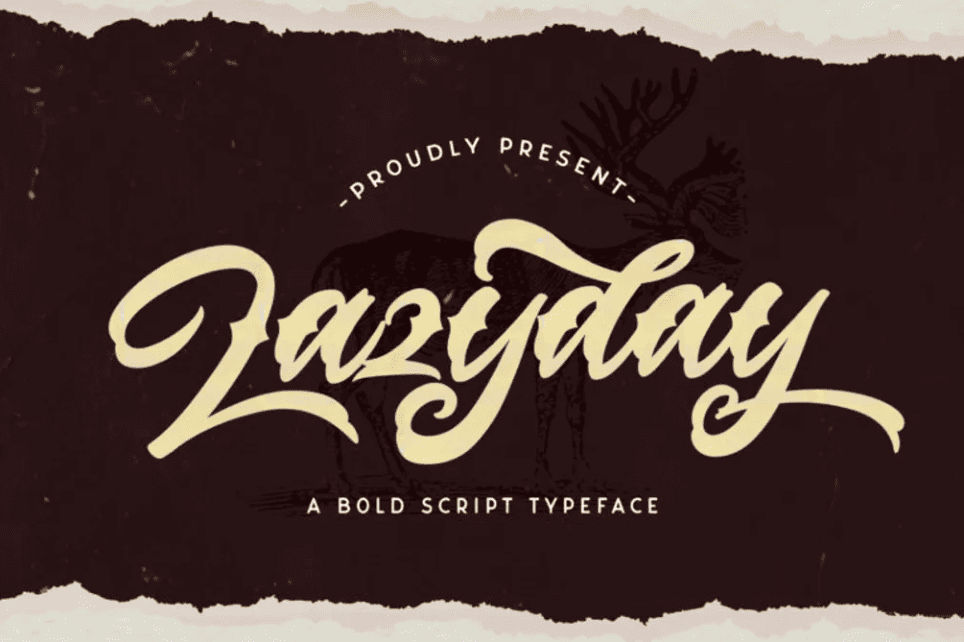
Lazyday carries a romantic confidence, displaying thorny strokes in every letter. This subtle modification on a bold script font adds beauty and intricacies even in a small piece.
2. The Lastring
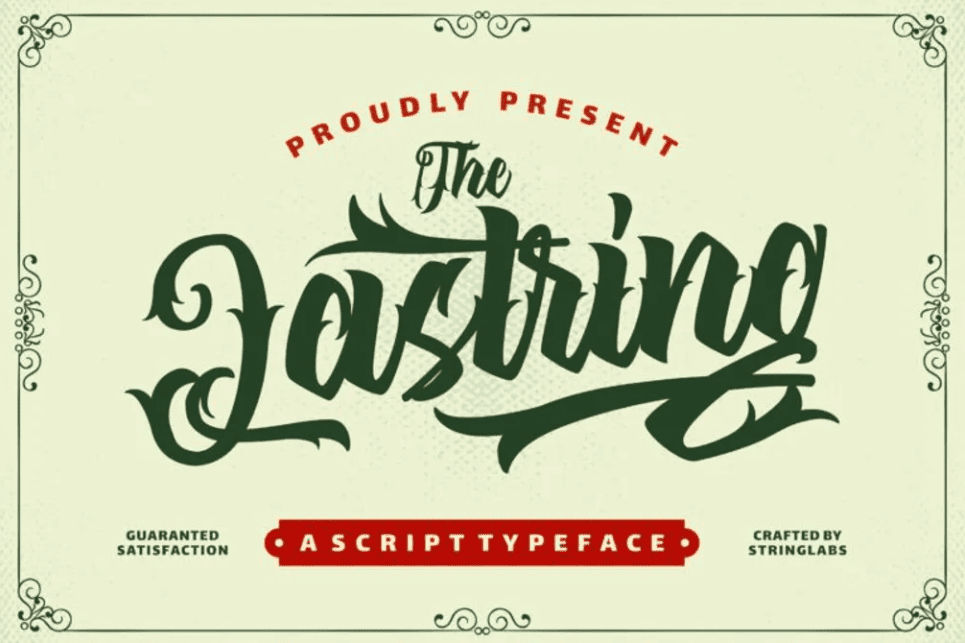
Among our tattoo fonts for men, The Lastring is especially made to express a strong impression. The font combines classy, vintage, and retro visuals with masculine floral accents.
3. Pangestu
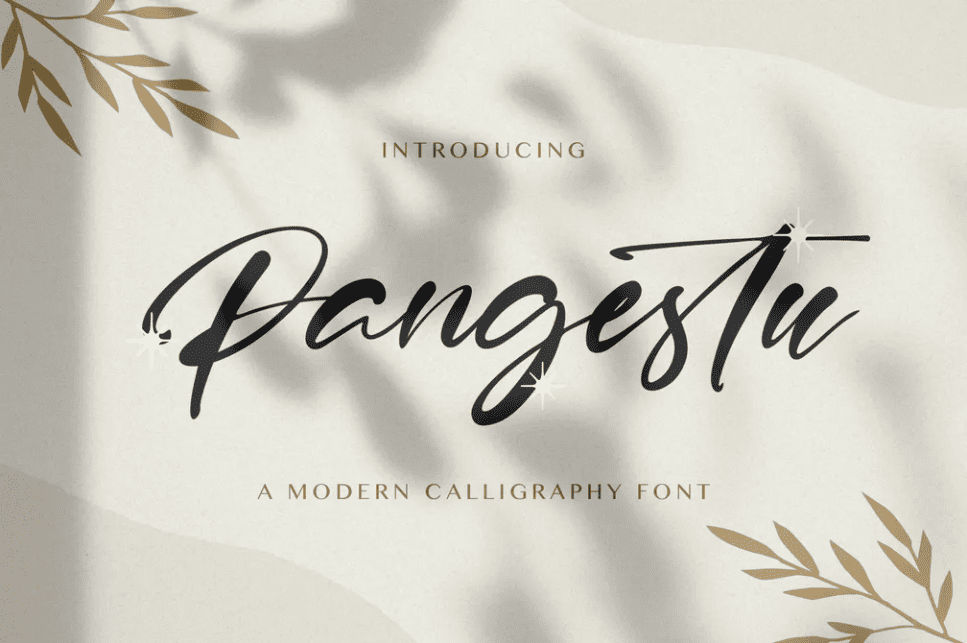
Pangestu displays a dramatic stroke contrast, pairing thick anchors with thin connectors. Its quick strokes and irregular lines create a unique, memorable proportion.
4. Tanya Hati
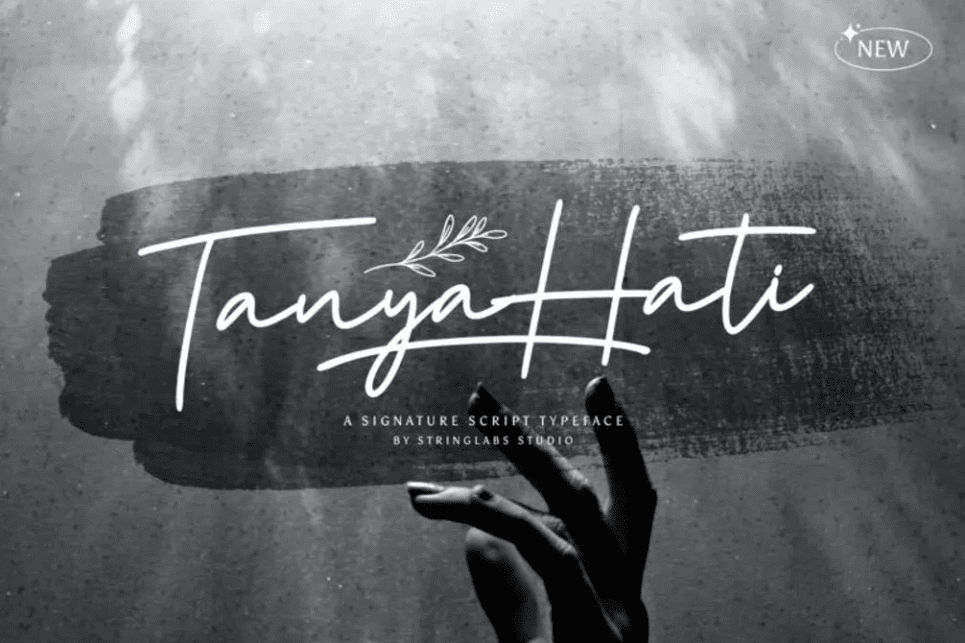
Concludes with gentle loops and understated swashes. Tanya Hati makes a versatile option within script font styles for tattoos, suitable for romantic phrases, memorial names, and poetic lines.
5. I am Cool
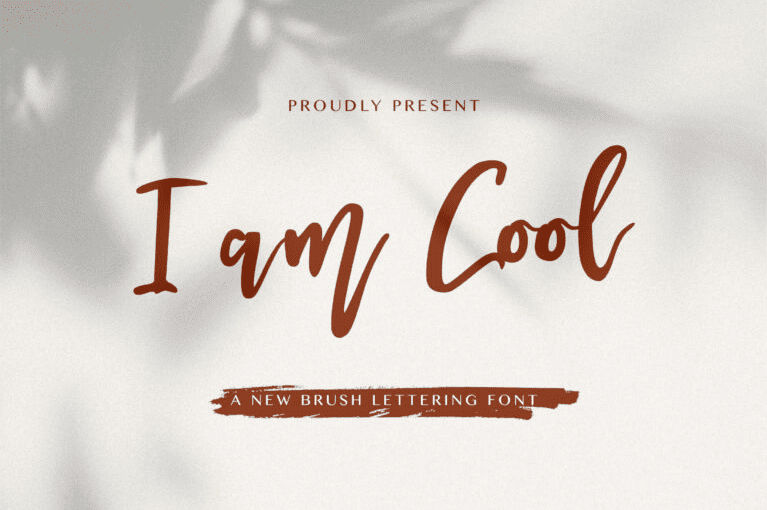
A fluffy brush script font for your unique tattoos. I am Cool always pairs its exaggerated tails with extravagant letterforms. This combo makes a unique movement despite the crowded inkworks.
6. Stranger
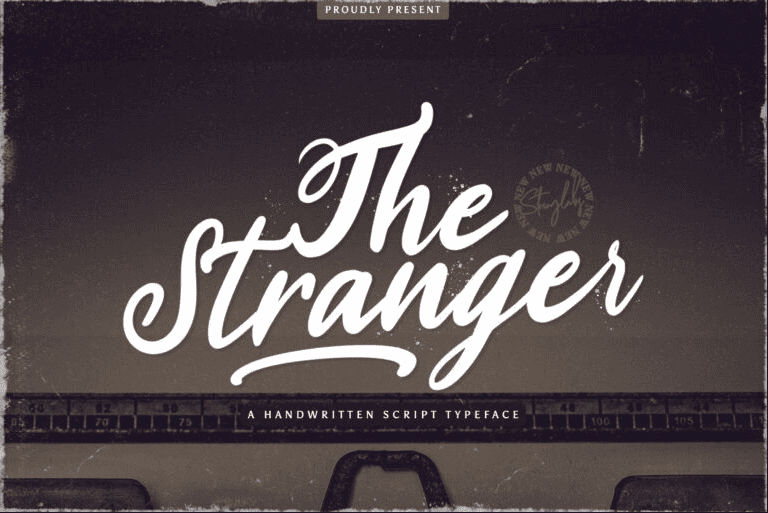
Features wide curves and looping ornaments that glide naturally from letter to letter. Its balanced rhythm makes Stranger one of the most expressive cursive fonts for tattoos.
7. Resttu Pagi
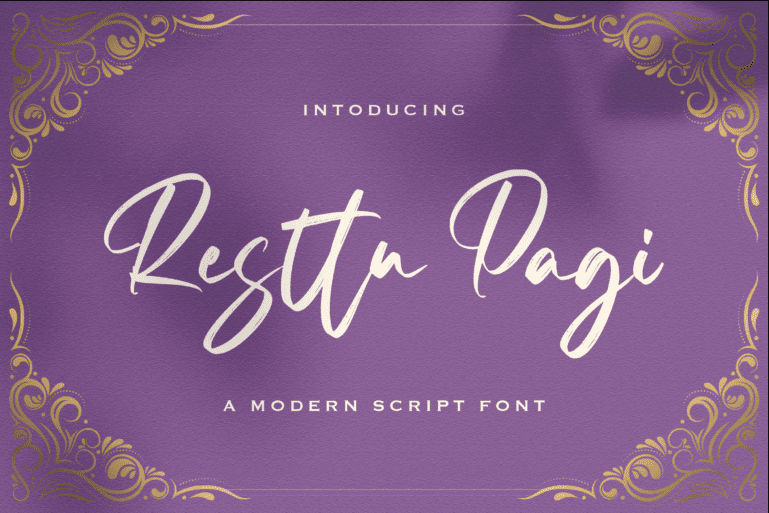
Resttu Pagi offers a light, elegant modern script look for your aesthetic tattoo concepts. The font has a dramatic contrast between the uppercase and lowercase letters, resulting in a creative visual.
8. Falcon Harfing
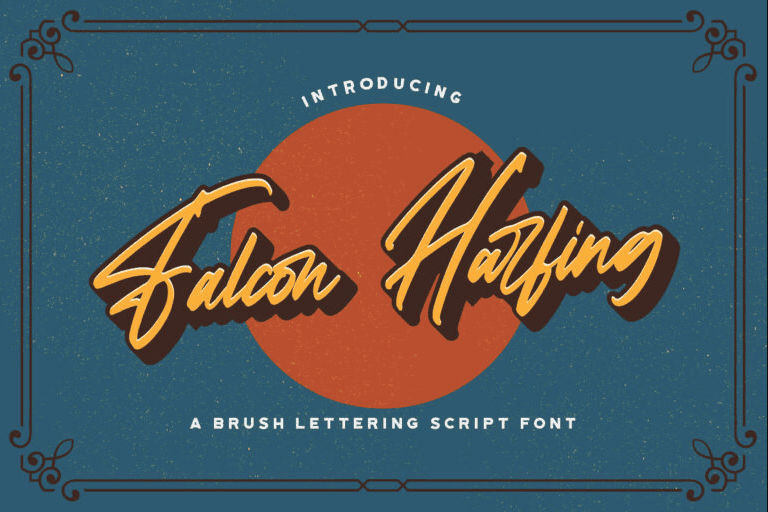
For a more rebellious look, use Falcon Harfing. This vintage-inspired font has daring letterforms, expansive strokes, and fearless energy, perfectly representing your adventurous nature.
9. Agenda King
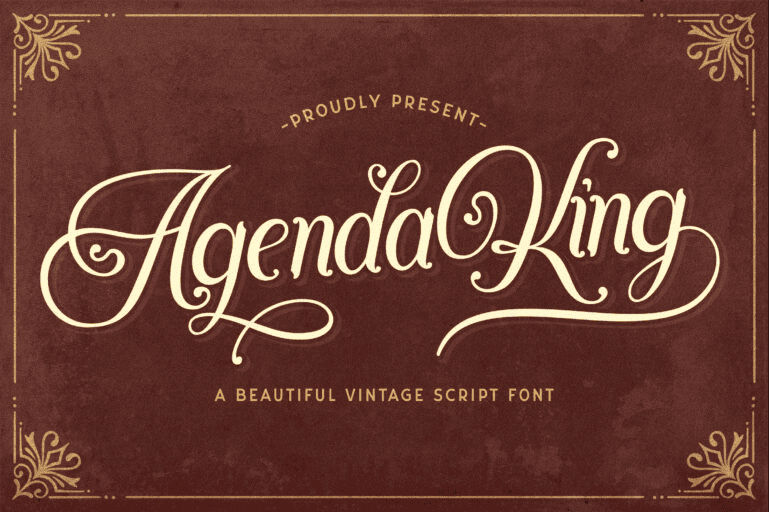
Agenda King features delicate letters with dramatic ending swashes. These trailing strokes create aesthetic movement across the body, enhancing script font style for tattoos with elegance and visual rhythm.
10. Partiny Agathi
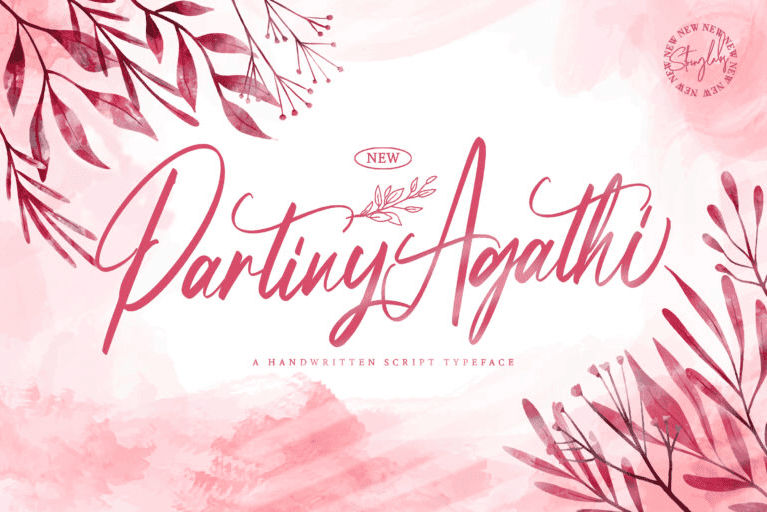
If you’re into a more uniform look, Partiny Agathi is the one for you. This font uses tall letters and condensed kernings, creating a beautiful curtain of letterform for your poetic phrases.
11. Bestallie
Bold, curved, rounded, and also sharp; those aspects are the best way to describe Bestallie. This brush script font takes modern lines and transforms them into intricate yet astounding typography.
12. Vaizonlly
Vaizonlly emphasizes rounded terminals and smooth baseline flow. This structure helps the lettering age gracefully on skin, preserving the beauty of expressive bold script over time.
13. Amigos Script
If you’re feeling a bit adventurous, a bubbly typography like Amigos Script here is worth trying. Without the extruding effect, this font makes a mysterious yet artsy ink lettering.
14. Madena Parlling
The first impression from looking at Madena Parlling is classy heritage. This font combines striking lines and cute twirls, resulting in a tattoo with vintage-vibed calligraphy elements.
15. Whetiya
For feminine tattoo lettering that exceeds the norm, take Whetiya. Its upright cursive, angular edges, and contrasted proportions make it an exceptionally readable typeface. Plus, its exquisite and intimate embellishments elevate the aesthetic to a new level.
16. Haredang
Haredang is among the tattoo fonts for guys with a laidback personality. This font perfectly expresses a calming, elegant persona. Its compact letters and missing connectors subtly present recklessness.
17. Kangtoni
What is unique about Kangtoni is the low ascender. Combined with its handwritten, monoline style, you instantly have script font styles for tattoos that demand attention.
Every tattoo carries meaning, and the lettering style plays a crucial role in expressing that meaning clearly. From bold and confident strokes to delicate romantic curves, the script font styles for tattoos explored here highlight how typography can shape personality, mood, and long-term visual impact.